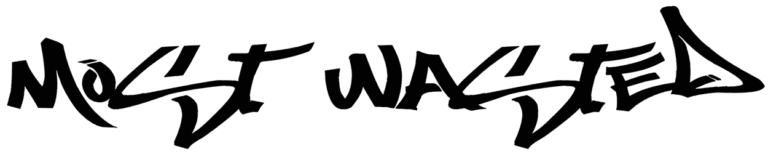
Brotherhood Font
It’s time to create a super-stunning text layout with the help of a handwritten font! Here is the Brotherhood font with semi-bold letters that fit blogs, books, games, or anywhere you’ve considered. Try it out and share a friendly vibe with the audience. Just remember that this one doesn’t include lowercase letters. Do you lust for more? Scroll up right now.